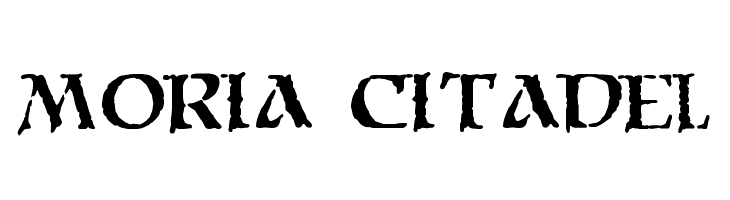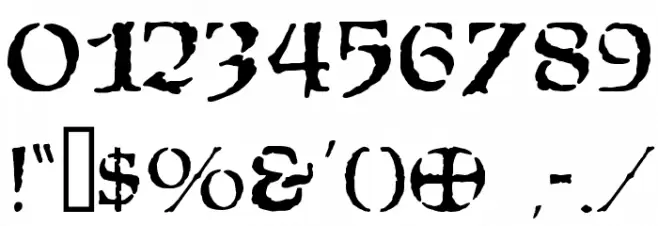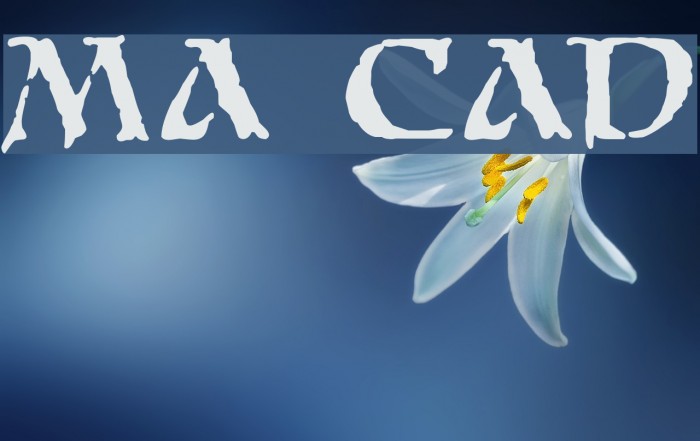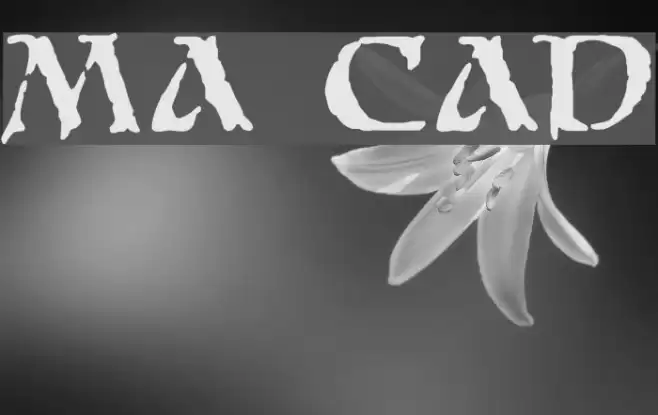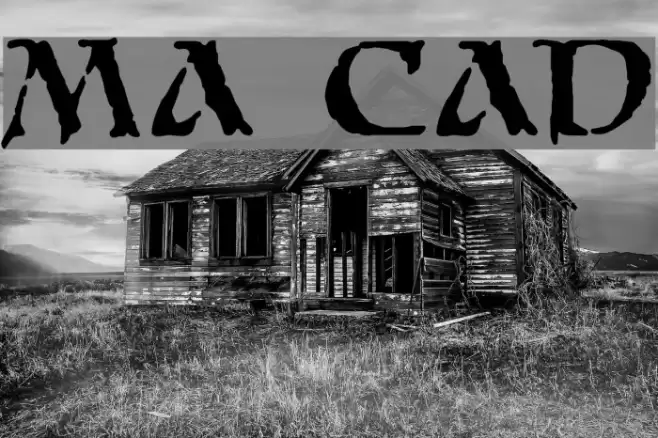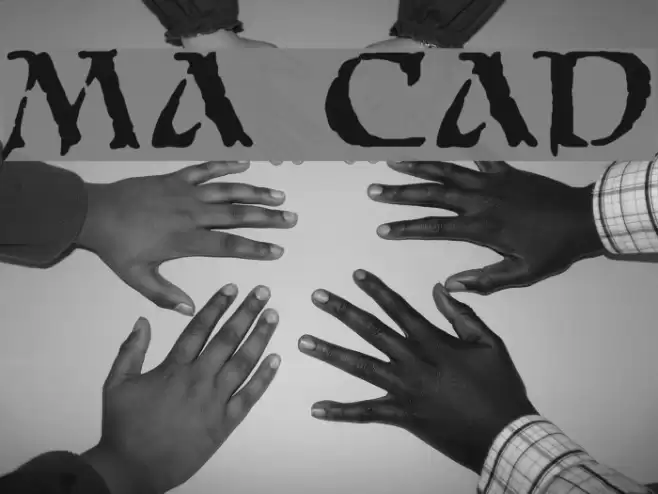
Moria Citadel Font
| Projetos propostos | Ideal for fantasy-themed designs, book covers, movie posters, or any project requiring a dramatic, historical aesthetic. |